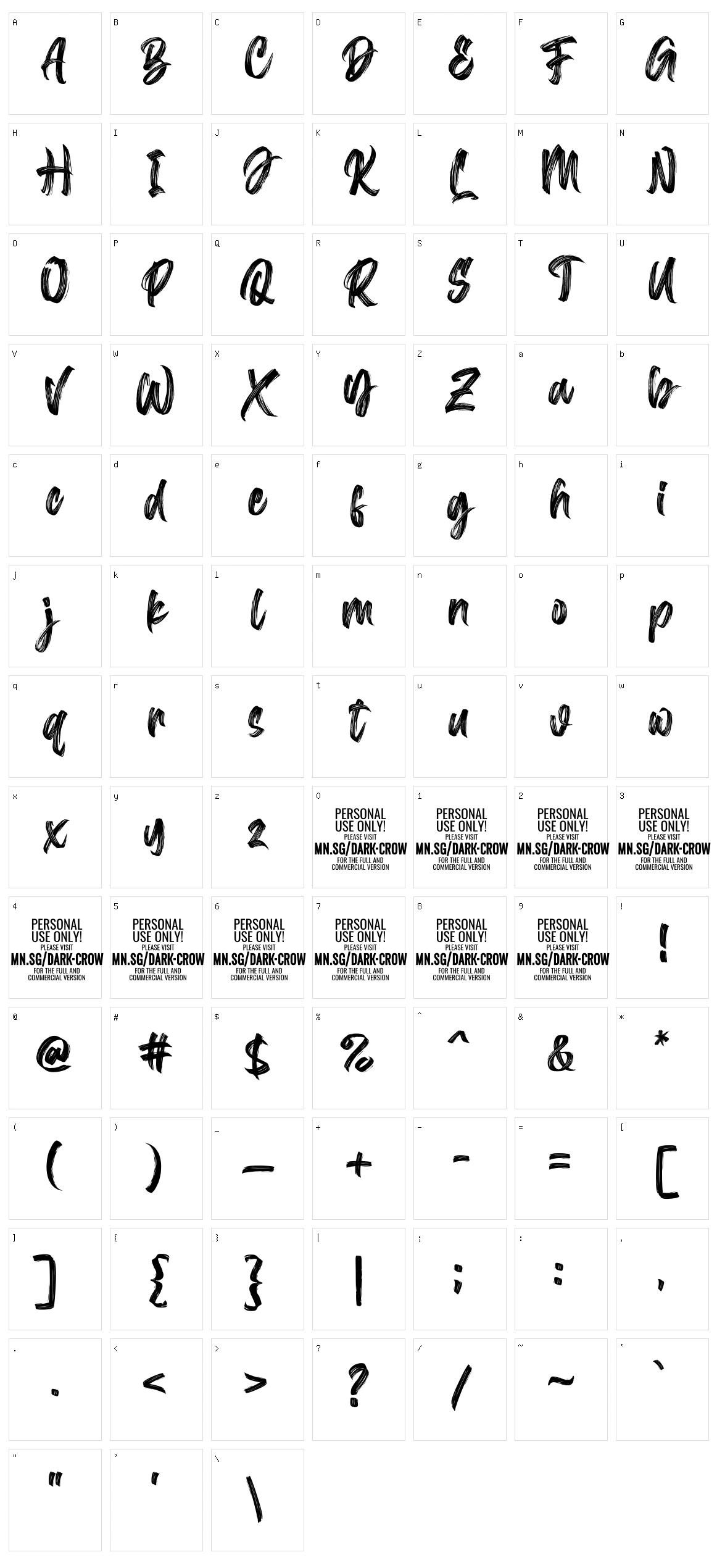
Dark Crow is a true brush script font, hand-painted in 2020.
Its top quality design with multiple ligatures combined make the lettering truly realistic. Use it for a poster, a product headline or in any context where you need an original, dynamic and eye-catching phrase.
Provided as upright and italic, and as a bonus a swash font.
It has an extensive lingual support, covering all European Latin scripts.
The font contains all characters you'll ever need, including all punctuation and numbers.